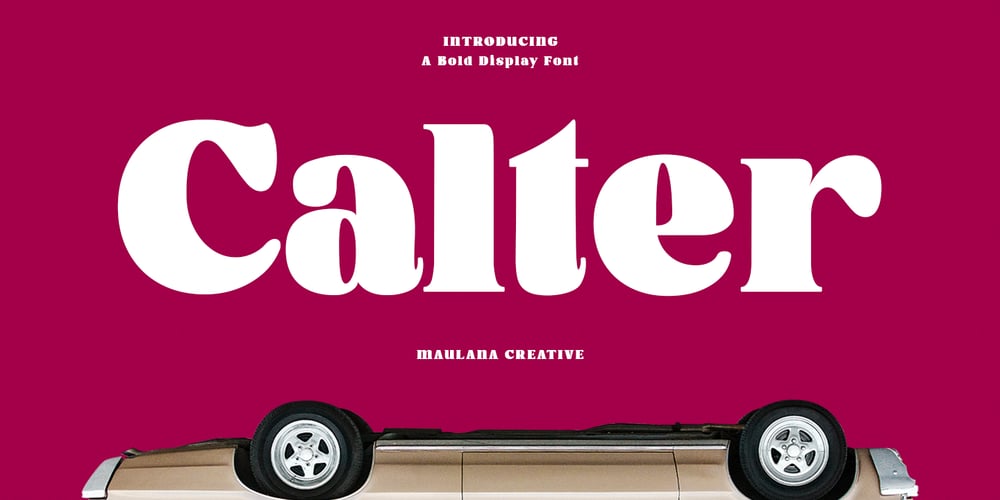
MC Calter Font Family was designed by Gilang Maulana and published by Maulana Creative. MC Calter contains 1 styles and family package options. Calter is a modern display serif font. With bold contrast stroke, fun character with a bit of ligatures. To give you an extra creative work. Calter font support multilingual more than 100+ language. This font is good for logo design, Social media, Movie Titles, Books Titles, a short text even a long text letter and good for your secondary text font with sans or serif. Make a stunning work with Calter font. Cheers, Maulana Creative